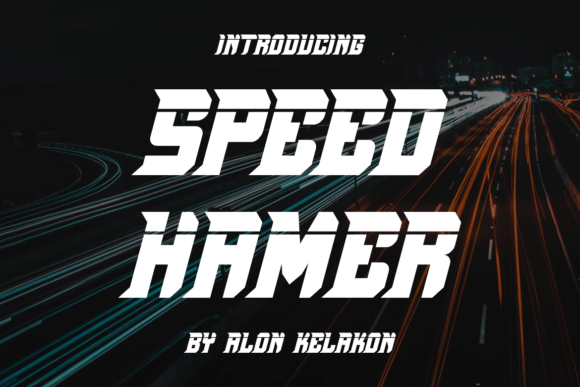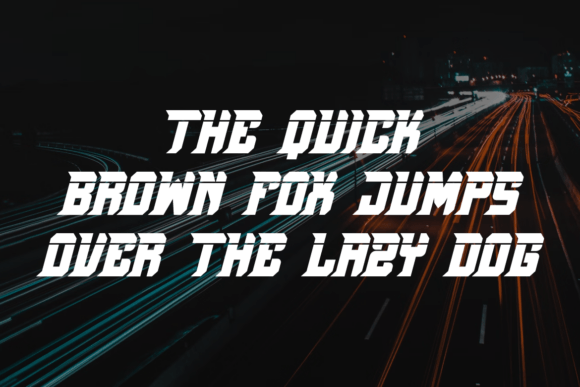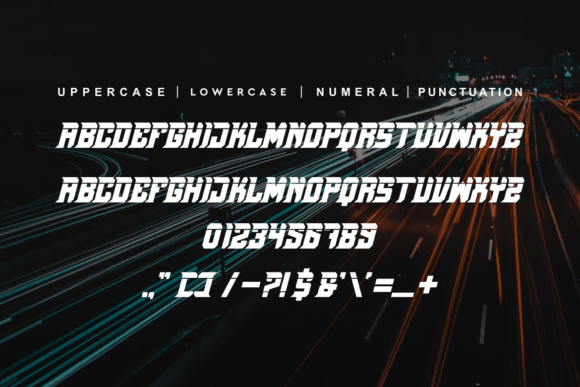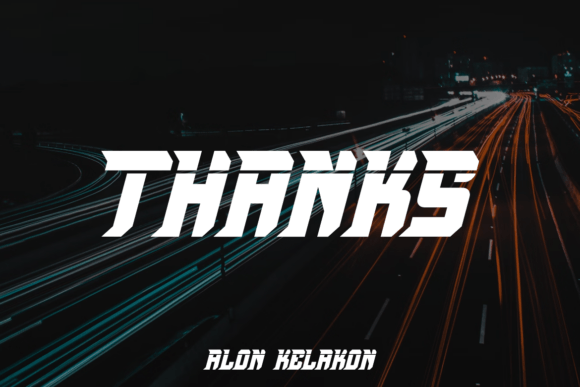
Speed Hamer Font: A Bold Display Font for Dynamic Logo Design
About the Speed Hamer Font
Elevate your designs with Speed Hamer Font, a font that combines sophistication with readability. Introducing a one-of-a-kind typographical marvel curated meticulously for your distinctive design needs. The font seamlessly merges with any creative scenario – ideal for turning mundane labels into extraordinary brand statements, infusing charisma in movie scenes and titles, adding vibrancy to gig and album covers, or shaping unforgettable logos. The flexibility and usability of this font extend beyond your imagination.
Speed Hamer Font Usage Examples
Speed Hamer Font Example